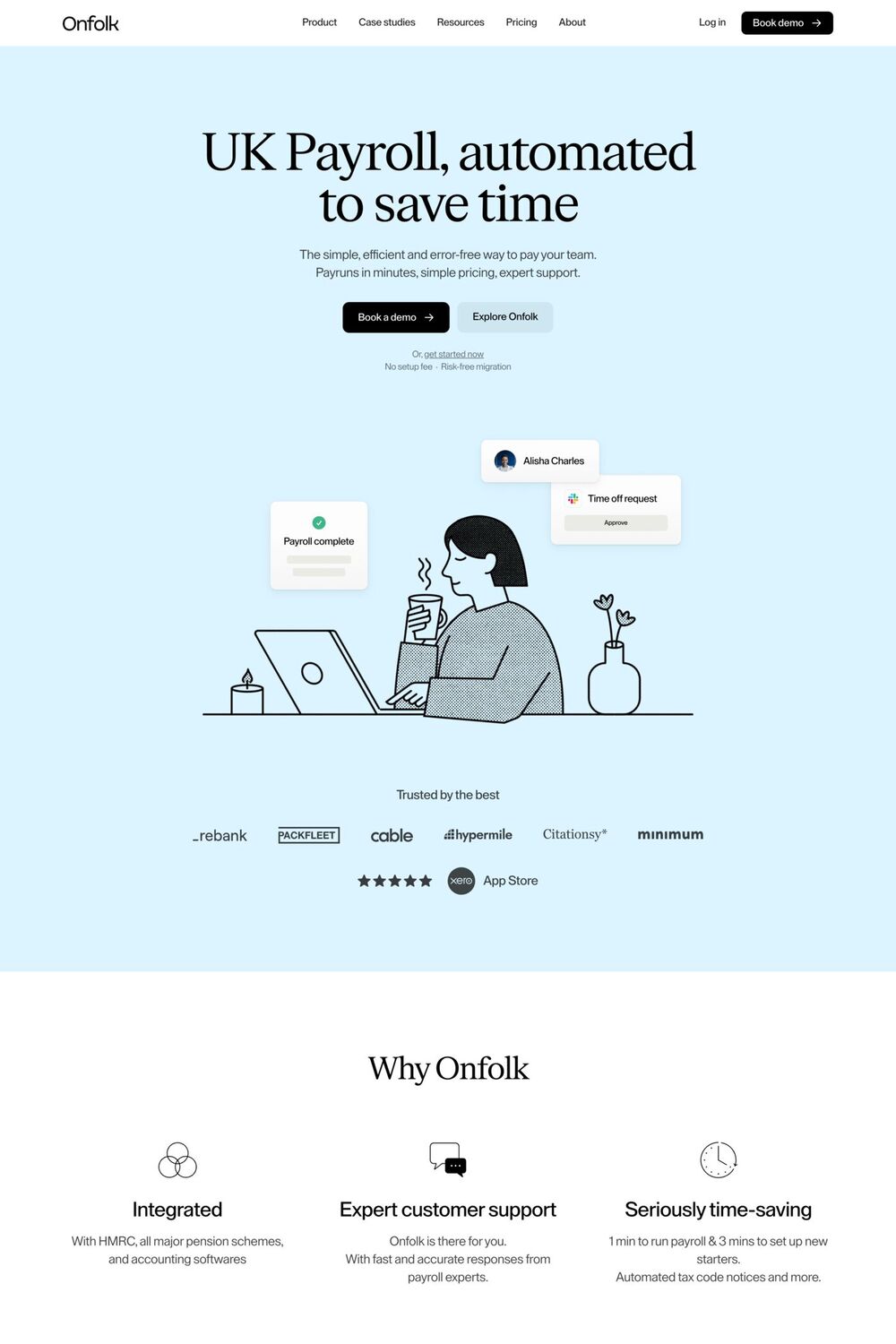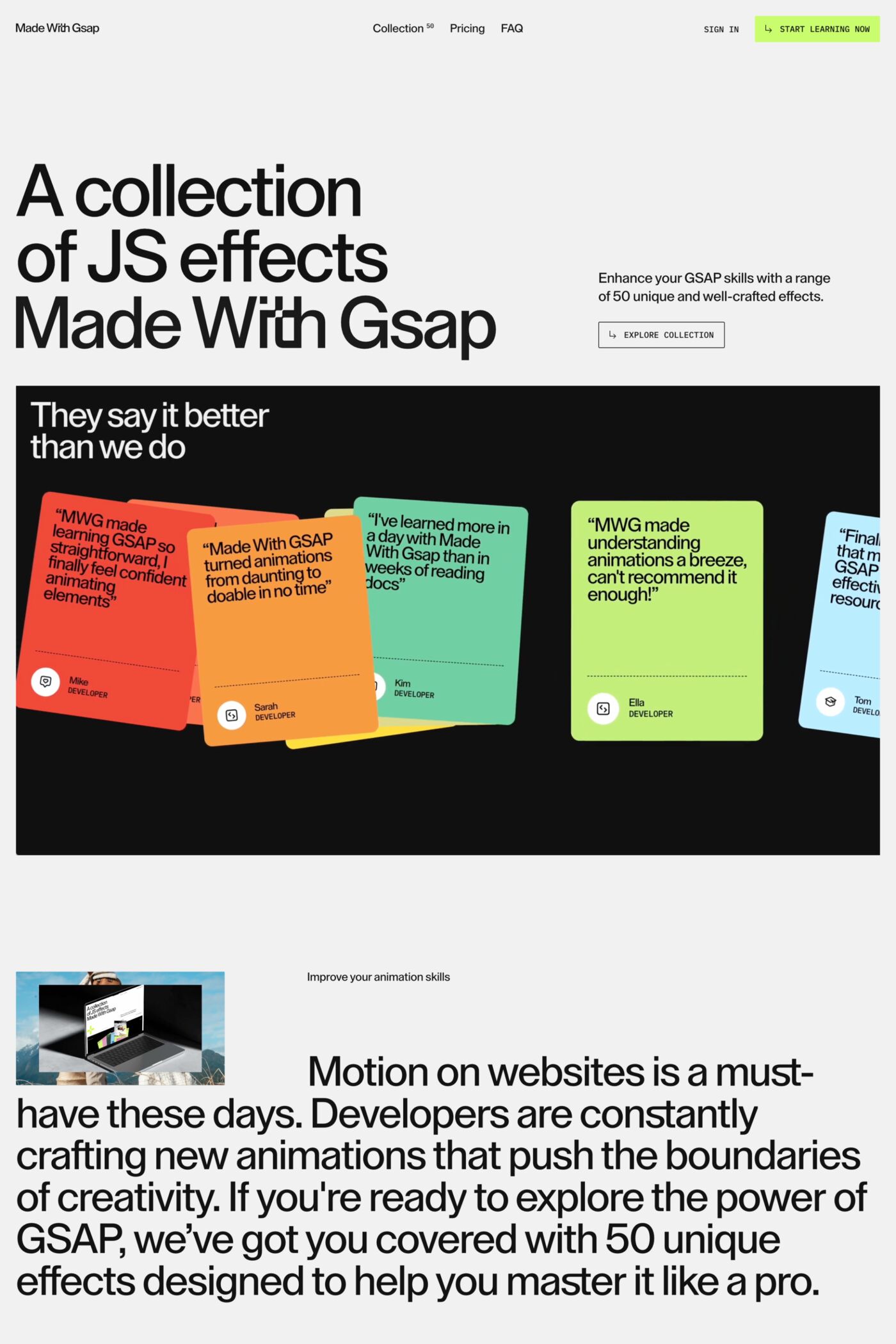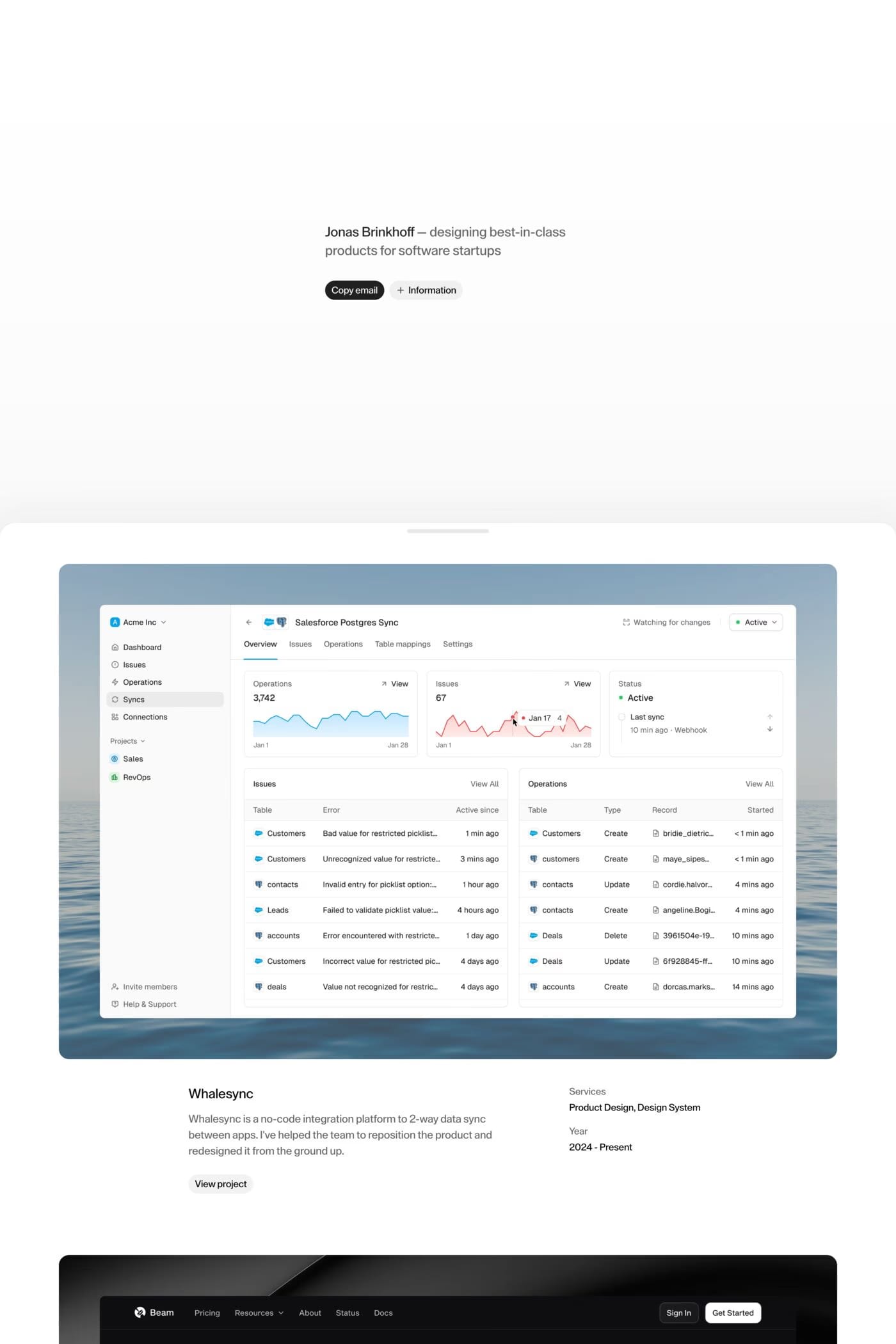
Lay Grotesk is a sans-serif typeface from Due Studio.
Lay Grotesk is a contemporary sans serif typeface that reinterprets the style of the millestones grotesk like Helvetica, Neue Haas Grotesk and Folio. It carries on the idea of neutrality at the basis of Swiss typefaces, while smoothing out their rigidity. The more evident contrast softens the shapes making it elegant but at the same time without frills or other intrinsic meanings. It works very well at small sizes ensuring good readability, thanks also to the slightly reduced width of the letters which allows for denser text lines.